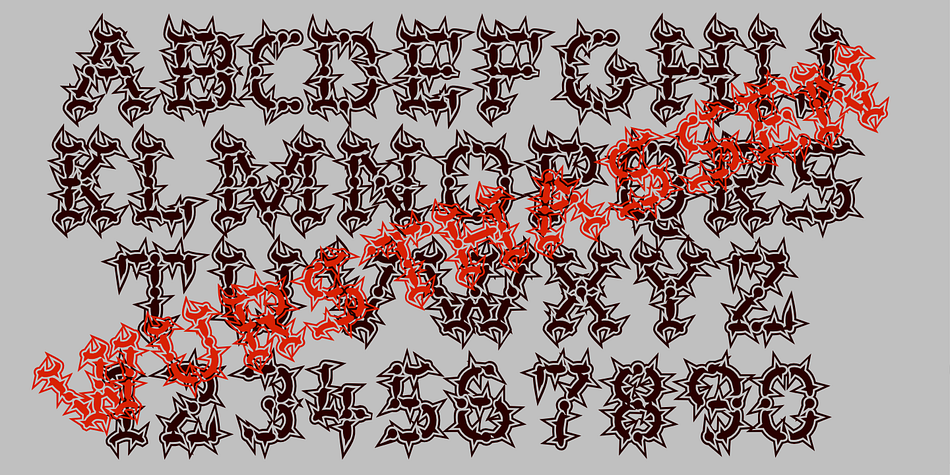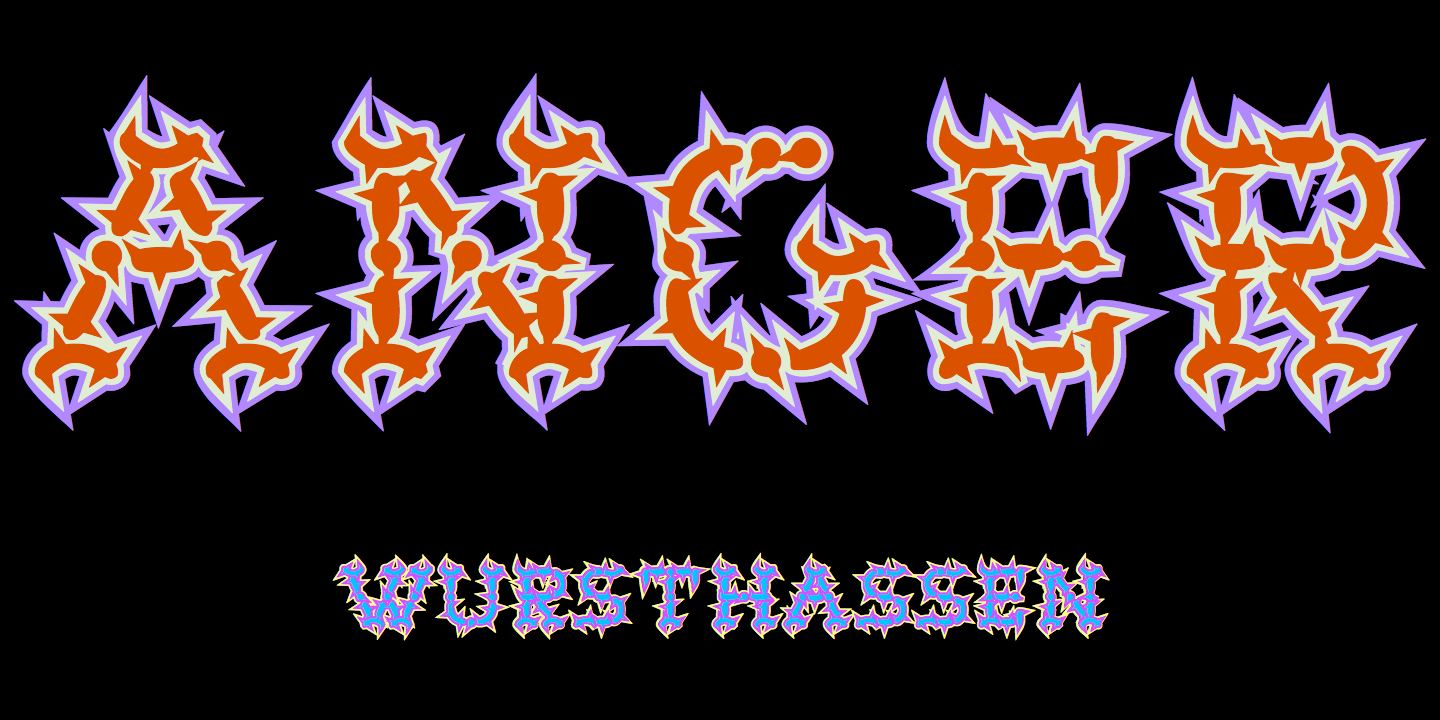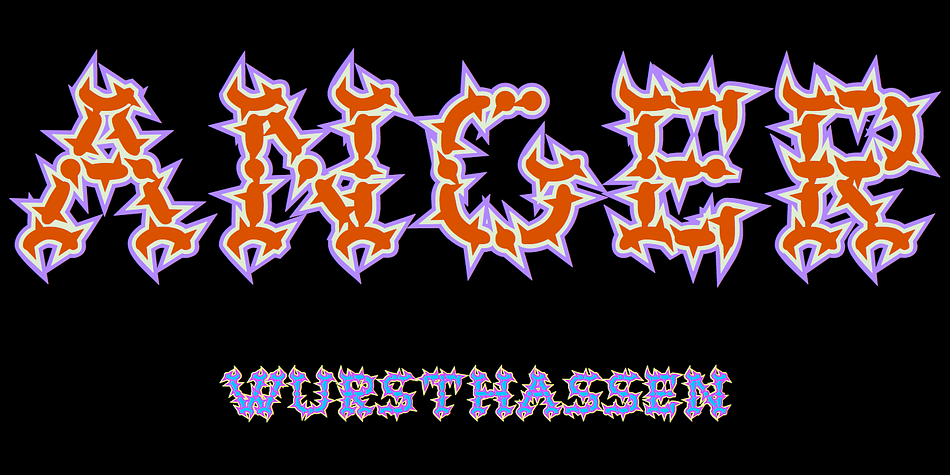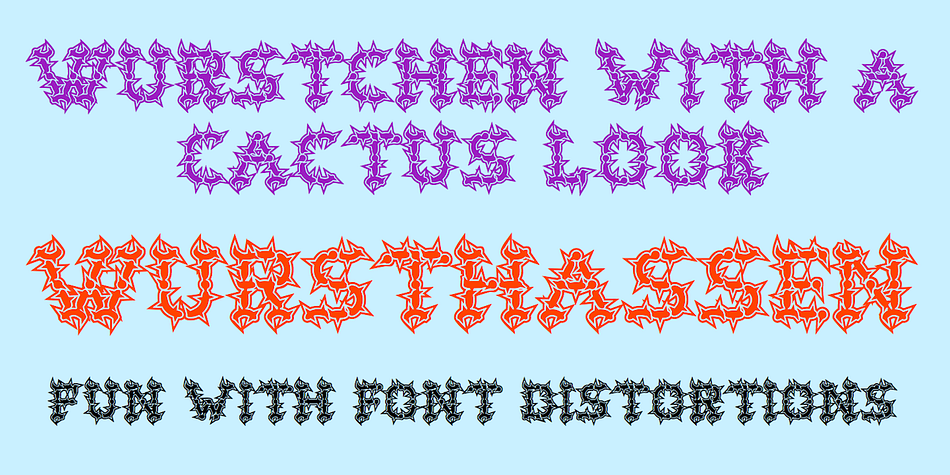
Designed by Robert Schenk, WurstHassen is a grunge and novelty font family. This typeface has three styles and was published by Ingrimayne Type.
WurstHassen is an ugly, violent typeface, full of anger and rage. It is caps-only. The two overlay styles can be used alone or layered with the base font to produce bi- or tricolored lettering.